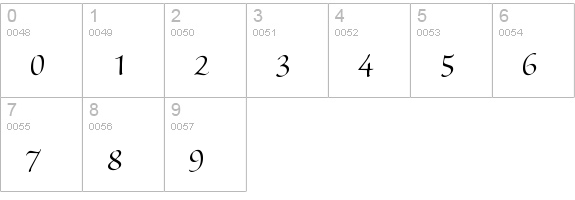
Sanvito Pro Display Font Details
The Sanvito Pro Display font is a visually stunning typeface that exudes elegance and sophistication. With its bold and sharp letterforms, this font is perfect for creating eye-catching headlines, titles, and logos that demand attention. Featuring a modern and sleek design, Sanvito Pro Display font effortlessly combines classic elements with contemporary aesthetics. Its clean lines and balanced proportions make it highly versatile, suitable for a wide range of design projects, from branding and packaging to advertising and editorial layouts. One of the most appealing aspects of the Sanvito Pro Display font is that it is freely available to download at FontsMarket.com. This means that designers and creatives can effortlessly access this exceptional font without any cost. Whether you are a professional or an aspiring designer, this font provides you with an incredible opportunity to elevate your designs without breaking the bank. The Sanvito Pro Display font boasts a comprehensive character set, including uppercase and lowercase letters, numerals, punctuation marks, and a variety of special characters. This extensive range of glyphs allows you to fully express your creativity and add a touch of uniqueness to your designs. Whether used in print or digital media, the Sanvito Pro Display font delivers exceptional legibility and readability, ensuring that your message is conveyed effortlessly to your audience. Its high-quality design and attention to detail make it a standout choice for both professional and personal projects. In addition, the Sanvito Pro Display font is fully compatible with various design software and platforms. This means that you can seamlessly incorporate this font into your existing workflow without any hassle. Overall, the Sanvito Pro Display font is a remarkable typeface that combines beauty, versatility, and accessibility. Its availability as a free download at FontsMarket.com makes it an indispensable tool for designers looking to create impactful and visually stunning designs. With its timeless appeal and exceptional quality, the Sanvito Pro Display font is sure to make a lasting impression on any project it is used for.